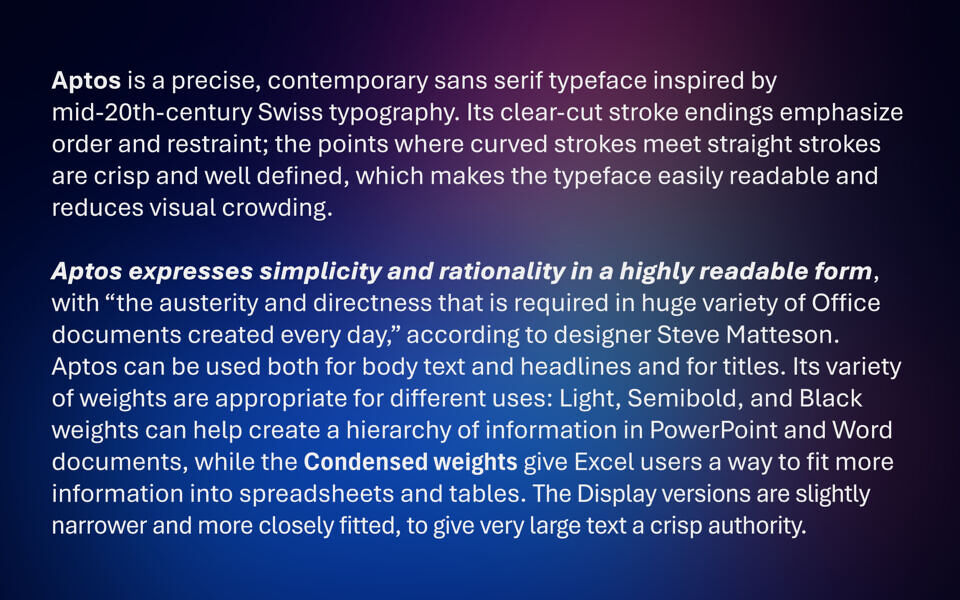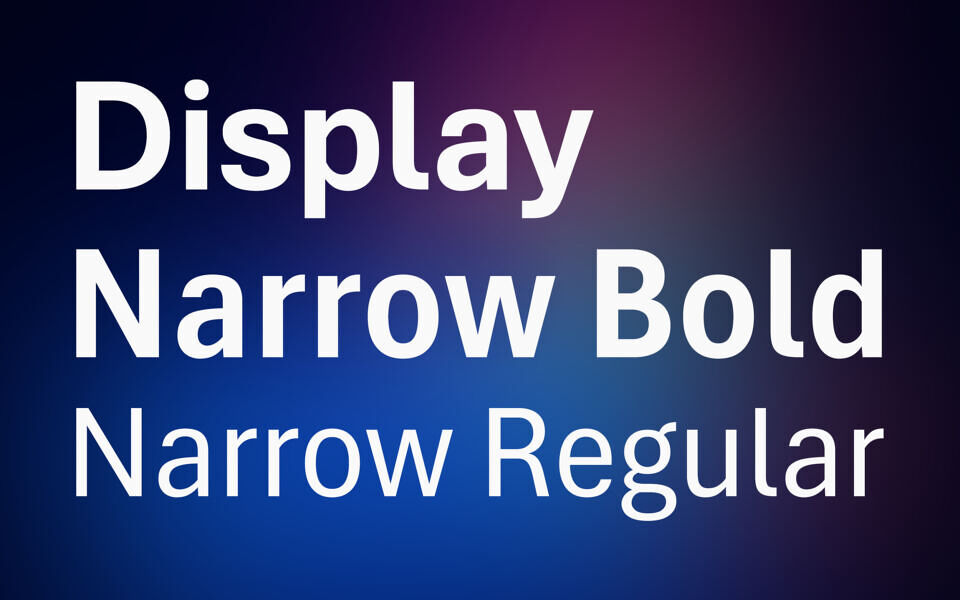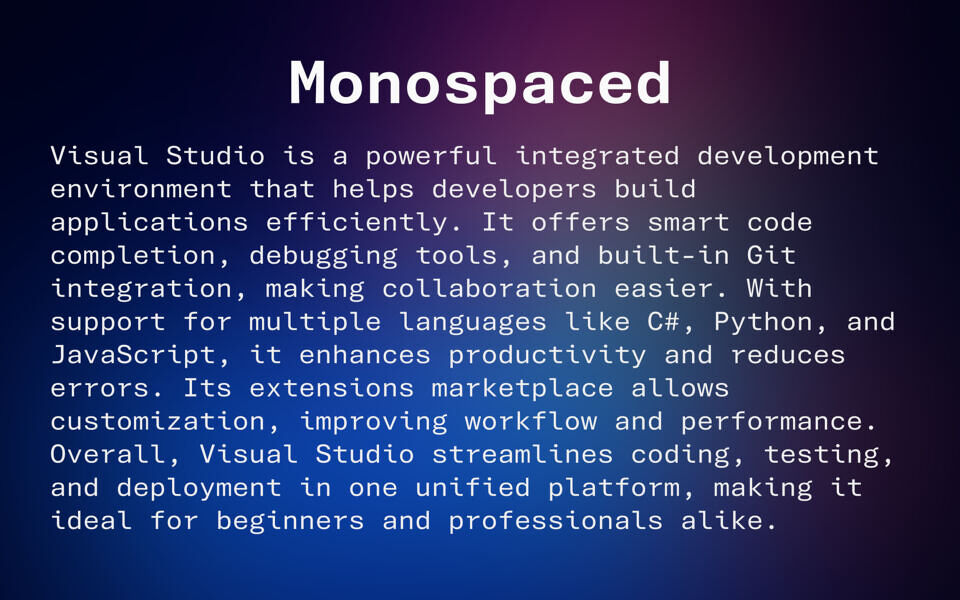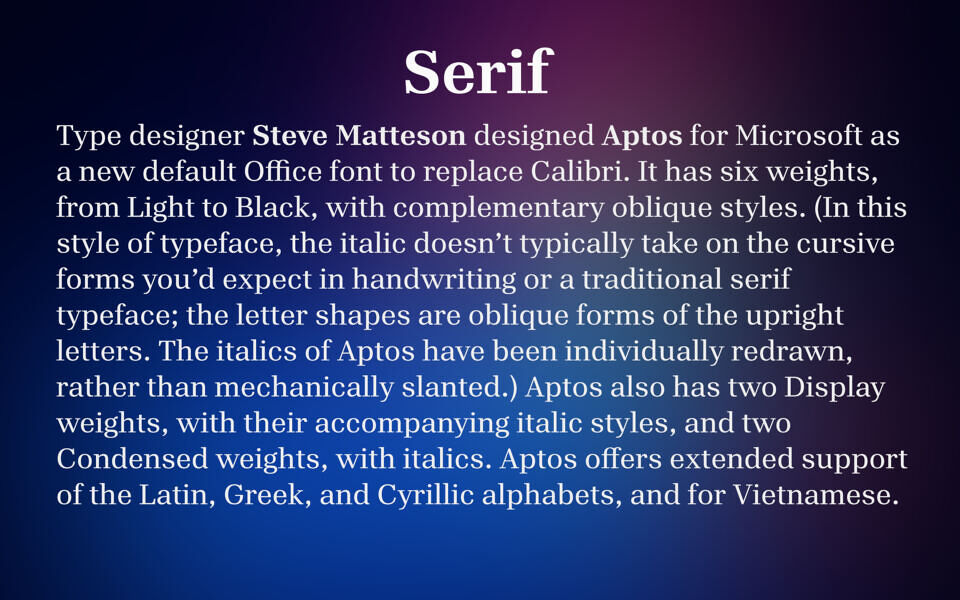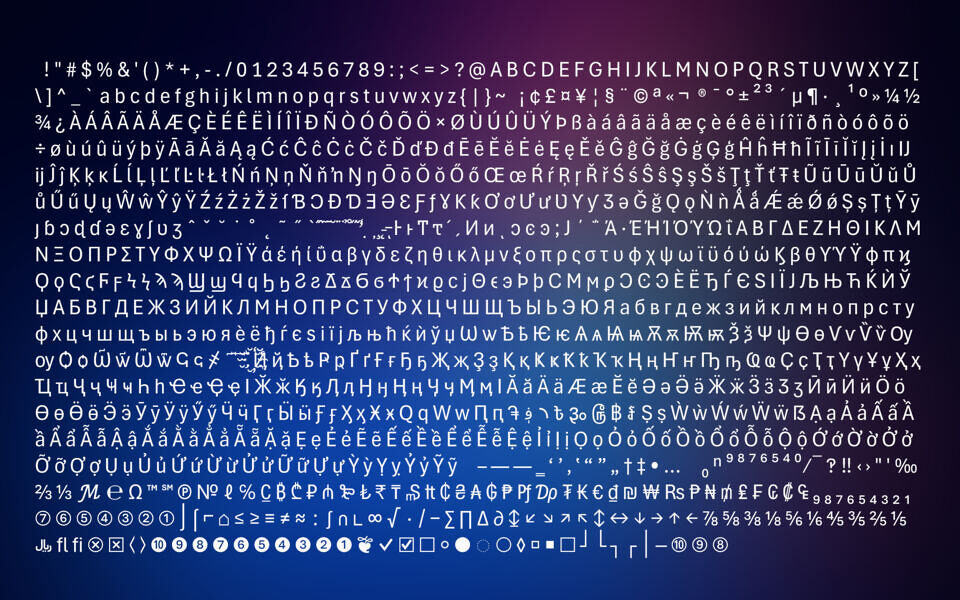
Aptos is a contemporary, geometric sans-serif font family designed by Steve Matteson to succeed Calibri as Microsoft’s default typeface. Inspired by mid-twentieth-century Swiss typography, it balances rigid geometry with warm, humanistic touches.
Featuring clean lines, high legibility, and a neutral yet distinct personality, Aptos performs exceptionally well across both high-resolution digital screens and print. The family includes various weights (ranging from Light to Black) along with corresponding italics and a stylized display variant for headlines.